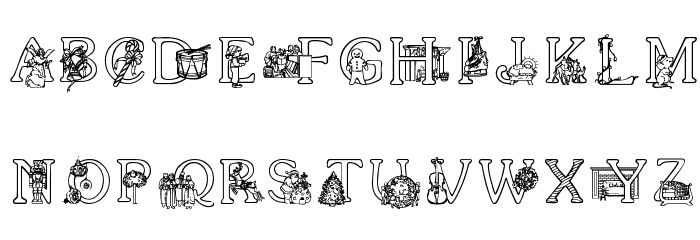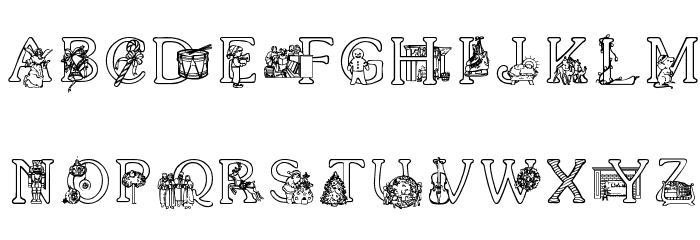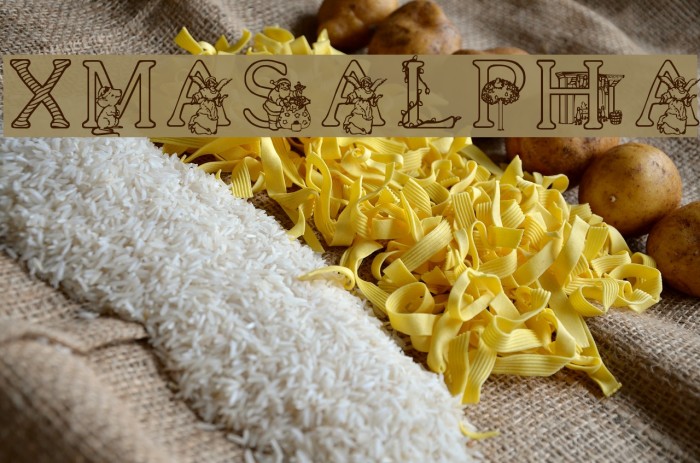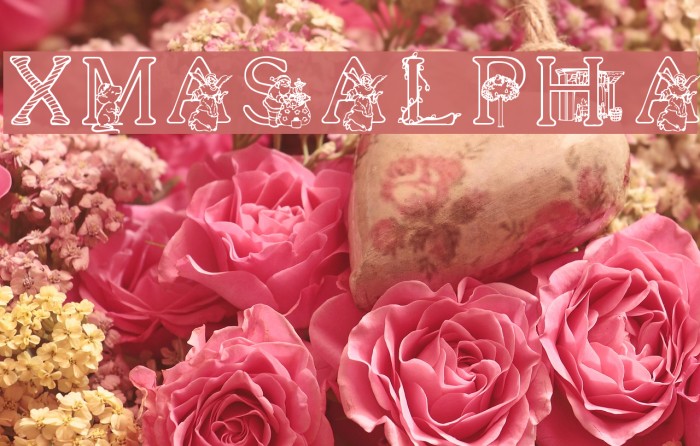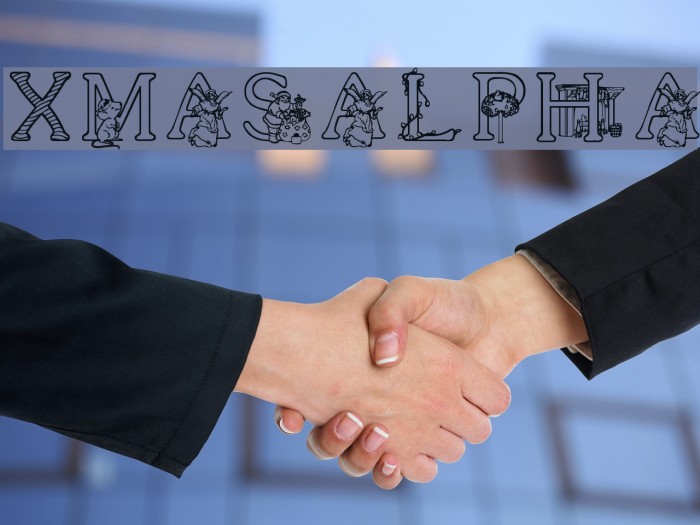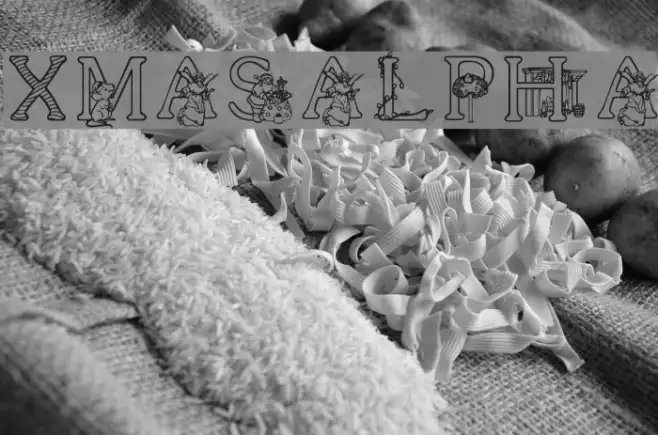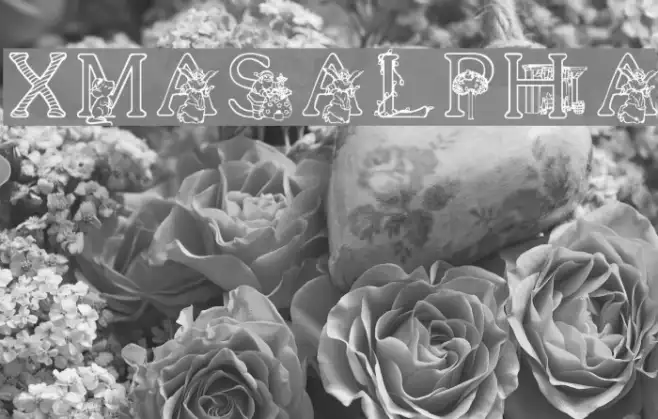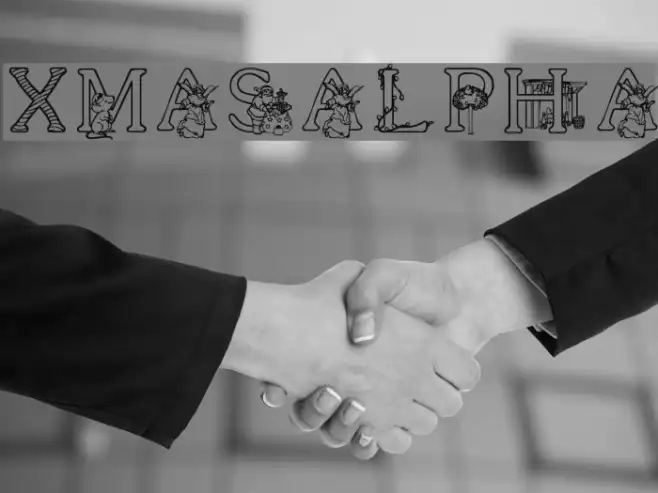
XmasAlpha Font
This decorative font features a whimsical and festive design, incorporating Christmas-themed illustrations into each letter. Each character is adorned with elements like Santa Claus, Christmas trees, gifts, and other holiday motifs, creating a playful and joyful aesthetic. The letters are bold and outlined, allowing the intricate details of the illustrations to stand out. This font is perfect for capturing the spirit of the holiday season, offering a unique and eye-catching style that is both fun and festive. The overall design is detailed and intricate, making it ideal for projects that require a touch of holiday cheer.
A festive, decorative font with Christmas-themed illustrations integrated into each letter.
- Proposed Projects: Ideal for holiday cards, festive banners, Christmas-themed posters, and seasonal marketing materials.